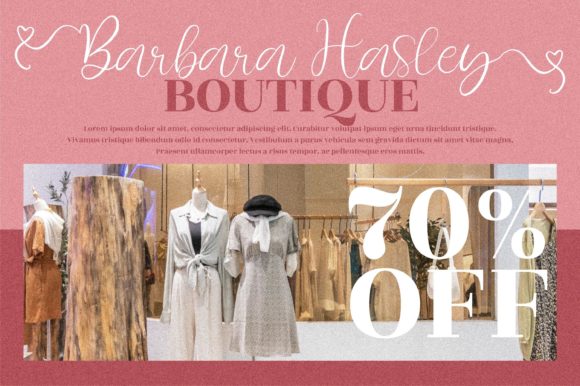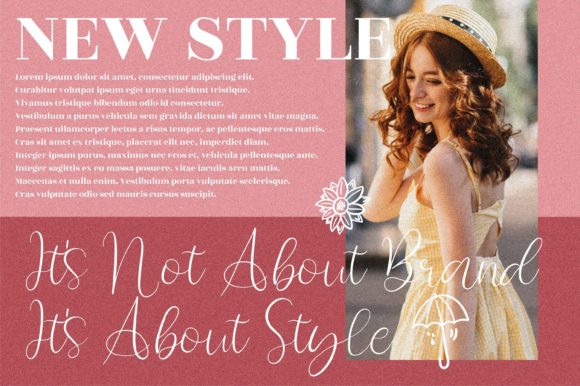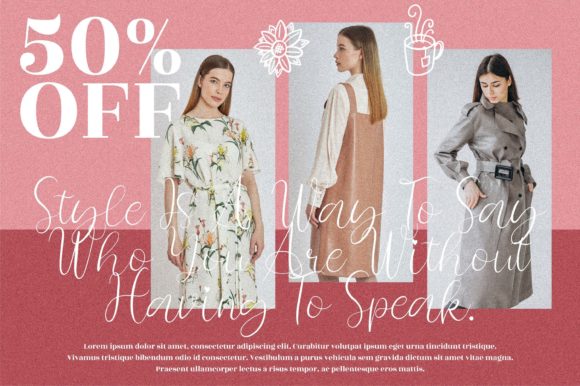
Introduction to Rossie Bella Font
Have you ever stumbled upon a design project that sparks a burst of creativity, and you can’t help but want to dive in headfirst? For many designers, that moment often comes when they discover a unique and captivating font that sets their project apart. For those who crave a touch of luxury and romance in their designs, the Rossie Bella Font is sure to be a game-changer.
This exquisite calligraphy typeface is designed to dance along the baseline, adding a delicate yet sophisticated charm to any design project. With its PUA encoding, accessing the font’s amazing glyphs and ligatures is a breeze, making it an invaluable resource for designers of all levels.
Key Features of Rossie Bella Font
- Features a unique, elegant design style with a mix of modern and vintage elements, perfect for adding a touch of sophistication to any project
Honest Review: Rossie Bella Font
As a designer, I’m always on the lookout for high-quality fonts to elevate my creative projects. Recently, I stumbled upon the Rossie Bella Font, and I was excited to give it a try.
- The Rossie Bella Font is a beautiful, elegant script font perfect for feminine designs.
- The font is only available in a few weights, which may limit its versatility in certain design applications.
- The font’s ornate design may not be suitable for more minimalist or modern designs.
Overall, I’m impressed with the Rossie Bella Font’s high quality and versatility. While it may have some limitations, it’s a great addition to any designer’s collection, especially for those working on feminine or elegant creative projects. With its free download option, it’s definitely worth checking out.
Getting the Most Out of Rossie Bella Font
For the best results, use Rossie Bella Font in conjunction with other high-quality design resources. Experiment with different font sizes, colors, and styles to create a unique look.
Common Use Cases for Rossie Bella Font
The Rossie Bella Font is ideal for creative projects such as logos, business cards, and social media graphics. Its high-quality design and transparent background make it perfect for adding a professional touch to your work.